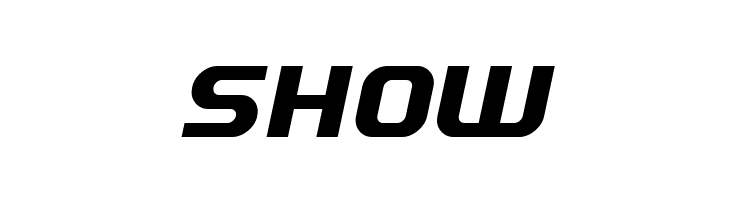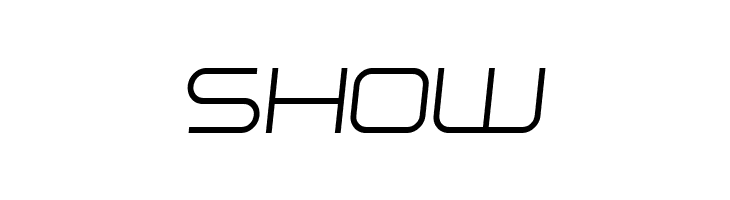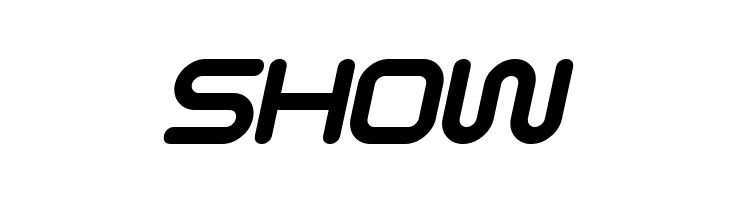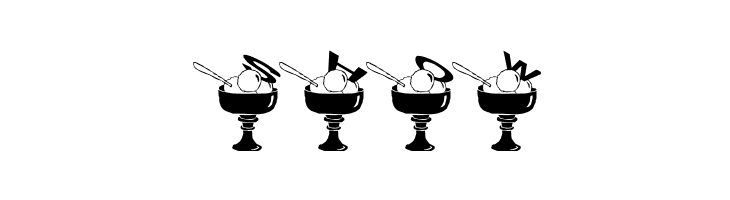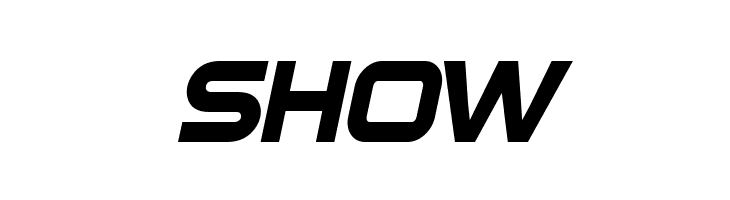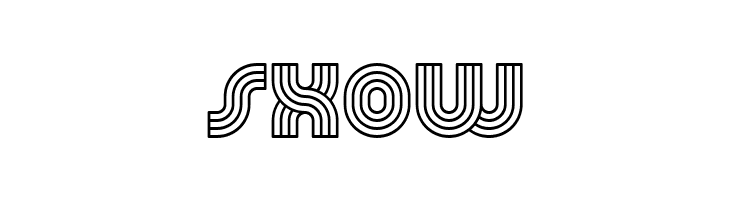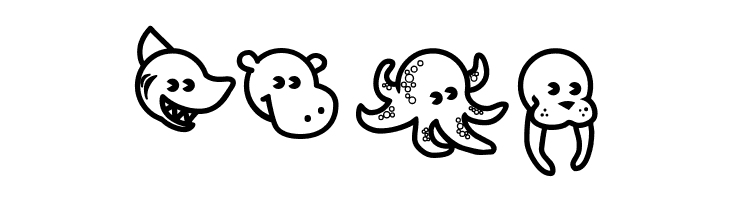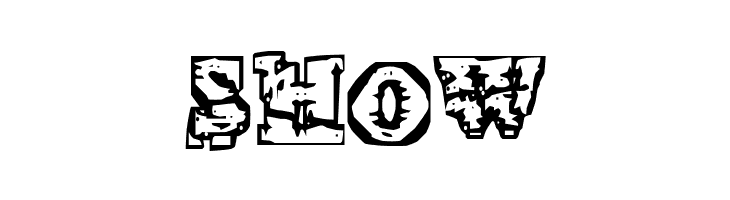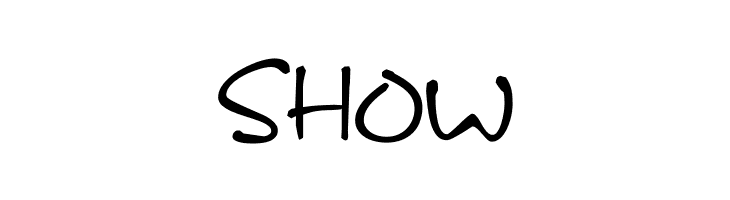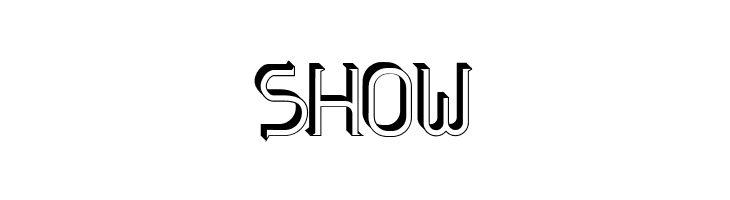
A modern, italicized font with a sleek, futuristic style.
A playful, bold font with rounded edges and a bubbly appearance.
A futuristic, italicized font with rounded edges and a sci-fi aesthetic.
A decorative, retro-futuristic font with layered, parallel lines and geometric symmetry.
Cartoon animal-themed decorative font with bold outlines.
A bold, decorative font with a three-dimensional effect and geometric shapes.
A modern, geometric font with elongated, narrow letterforms and consistent stroke width.
A modern, hollow, geometric font with rounded edges and uniform height.
A futuristic, angular, and bold italic font with a mechanical design.
A bold, geometric sans-serif font with a modern and impactful style.
A bold slab serif font with geometric influences and uniform stroke width.
A futuristic, geometric font with sharp angles and a digital aesthetic.
A bold, pixelated font with a retro, digital aesthetic.
A pixelated, monospaced font with a retro digital aesthetic.
A futuristic, geometric font with bold strokes and high contrast.
A modern, narrow font with a sleek and elegant design.
A bold, distressed font with a rugged, weathered appearance.